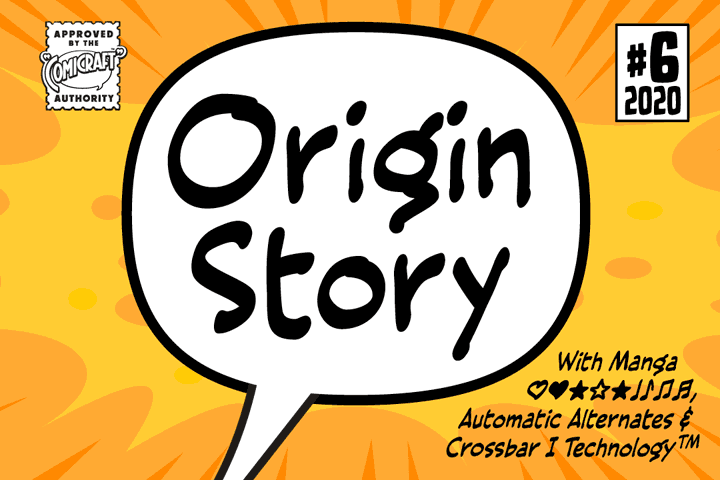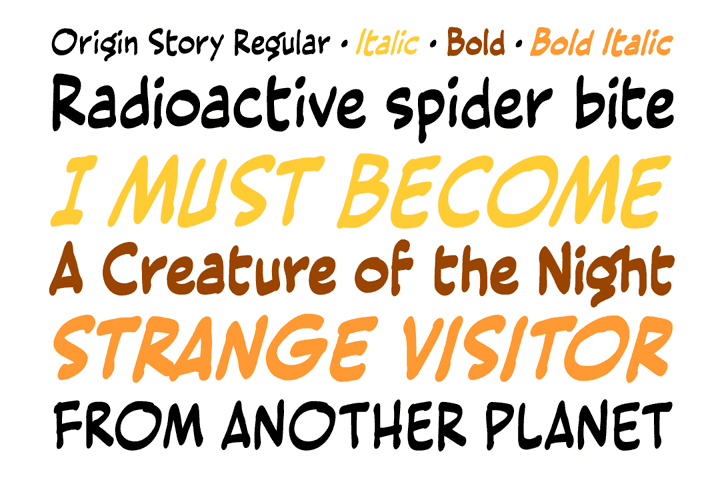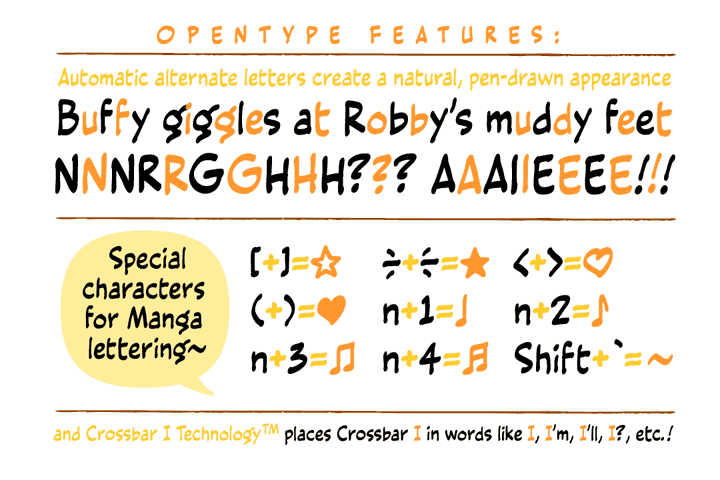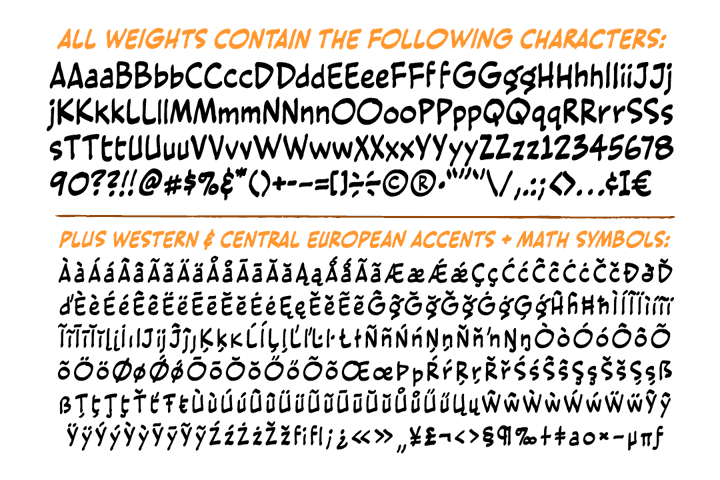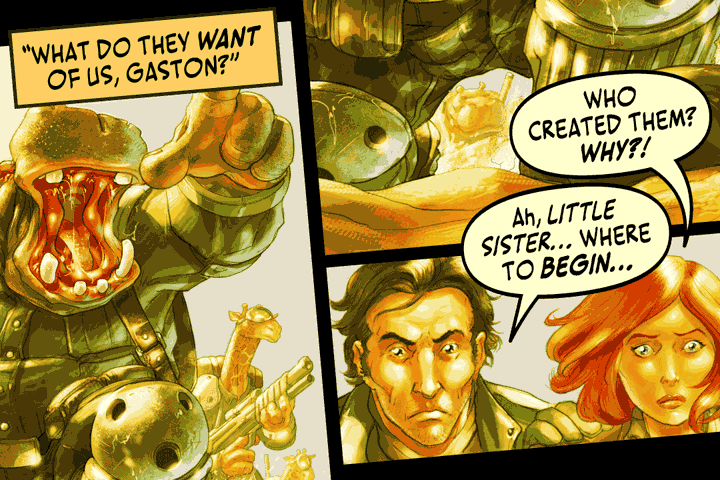
Origin Story
Origin Story font
Down in his secret underground font laboratory, mild mannered John Roshell was tinkering with his iPad when the Apple Pencil suddenly bit him and he found himself feverishly creating letterforms on the tablet...
Before long his hand was burning and glowing with superspeed — his penstrokes were longer than one-eighth of a mile; he was suddenly able to letter a twenty-story omnibus with newfound fontastic strength and could create tremendous weights with more leading than an express train...
And thus was born: ORIGIN STORY!
• Four weights with upper & lowercase
Languages: Complete Europe (221)
Plus: Automatic alternates, Manga characters & Crossbar I Technology™